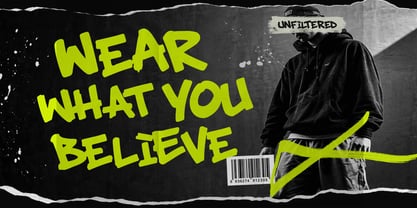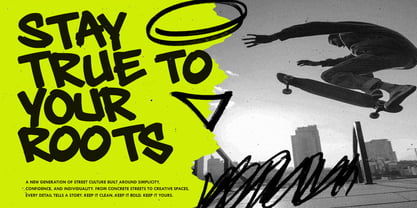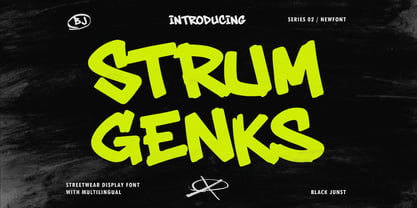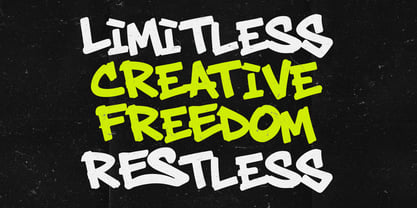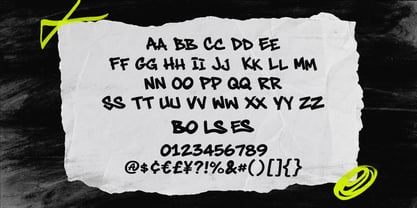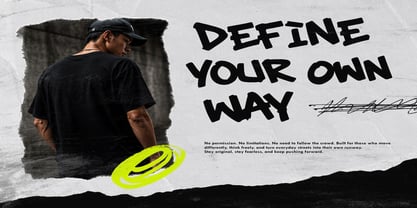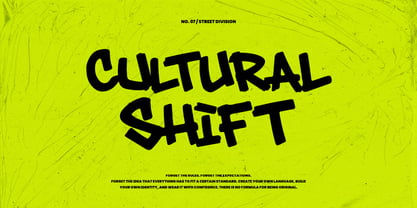
Strum Genks
Die Schriftfamilie Strum Genks wurde von Maulana Semar entworfen und von Black Junst veröffentlicht. Strum Genks enthält 1 Stile. Mehr über diese Familie
Strum Genks – Graffiti Display Font
Strum Genks is a bold and expressive graffiti display font inspired by street culture, urban lettering, and contemporary streetwear design. Featuring chunky hand-drawn forms and irregular organic shapes, it delivers a raw, energetic, and rebellious visual character.
Designed to make typography stand out, Strum Genks is ideal for streetwear branding, apparel design, clothing graphics, logos, posters, music artwork, album covers, stickers, merchandise, packaging, social media graphics, skate designs, and urban advertising.
Its strong display presence works particularly well for headlines, brand names, short statements, and large-scale typography where the lettering needs to become the focal point.
With multilingual support, Strum Genks gives designers greater flexibility for international creative projects while maintaining its distinctive graffiti-inspired personality.
Whether you're creating a fashion label, merchandise collection, music artwork, promotional poster, or bold urban identity, Strum Genks brings a raw streetwear and graffiti aesthetic to your typography.